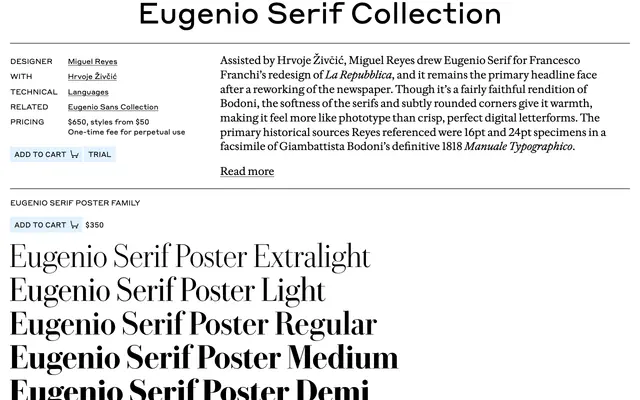
Eugenio Serif Collection
A softened Bodoni revival by Miguel Reyes drawn for La Repubblica, with rounded corners and phototype warmth across three subfamilies.
A modern serif by Miguel Reyes with Hrvoje Zivcic, drawn for Francesco Franchi's redesign of La Repubblica and still the primary headline face after the paper's reworking. Though fairly faithful to Bodoni, the softness of the serifs and subtly rounded corners lend it warmth, recalling phototype rather than crisp digital letterforms. Reyes referenced 16pt and 24pt specimens from a facsimile of Giambattista Bodoni's 1818 Manuale Typographico. Splits into Poster and standard cuts plus a companion Eugenia for very large display sizes.
Commercial Type describe Eugenio Serif as a softened Bodoni revival drawn by Miguel Reyes with Hrvoje Zivcic for Francesco Franchi's La Repubblica redesign, with rounded corners and gently softened serifs that recall phototype rather than crisp digital forms. Includes a companion Eugenia for very large display.